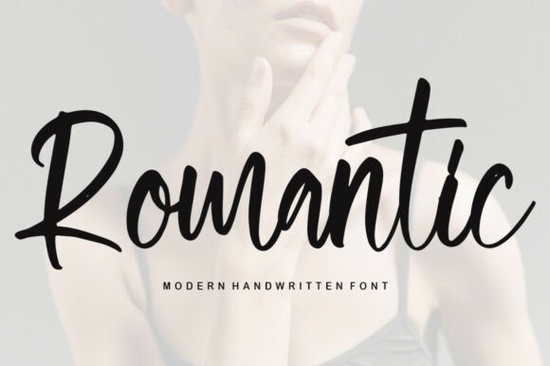
Finding the right typography for a wedding invitation or a boutique logo often comes down to balancing elegance with readability. The Romantic Font offers exactly that balance. It is a sweet, cursive handwritten typeface that brings a gentle, joyful touch to visual projects. Whether you are a small business owner designing lookbooks or a crafter making greeting cards, this script style provides a fancy yet casual aesthetic that connects well with audiences looking for a personal feel.
What projects work best with a cursive handwritten typeface?
When working with fluid, connected lettering, the goal is to let the typography act as the main focal point. This specific style shines in applications where a human touch is necessary. Wedding stationery is a natural fit, especially for save-the-dates, seating charts, and envelope addressing. Crafters using cutting machines like Cricut or Silhouette will find the smooth curves relatively easy to weed when cut from adhesive vinyl for custom decals.
How do you pair this script with other typefaces?
A common mistake in typography is combining two highly decorative styles, which makes the text difficult to read. Since this cursive option has a lot of personality and flowing swashes, it needs a quiet partner. Pairing it with a clean, geometric sans-serif for body text ensures your message remains legible while the script handles the visual impact.
Is this typeface suitable for commercial crafting and print-on-demand?
Because the lettering is gentle and flowing, it scales smoothly across different mediums. You can stretch it across a large canvas tote or shrink it down for a subtle logo on a cosmetic label. Small businesses often use this kind of typography to build a brand identity that feels approachable, boutique, and trustworthy.
What should you check before exporting your final design?
Before sending your file to the printer or uploading it to your storefront, run through a quick quality check to ensure your text looks professional.
- Check the kerning: Even well-designed script typefaces sometimes need manual spacing adjustments where two specific letters meet to ensure they connect properly.
- Test the contrast: Ensure your text color stands out clearly against the background, especially if you are printing on textured paper or dark fabrics.
- Limit the usage: Use the cursive style for headlines, logos, or short quotes. Stick to simple sans-serif fonts for long paragraphs to avoid eye strain.